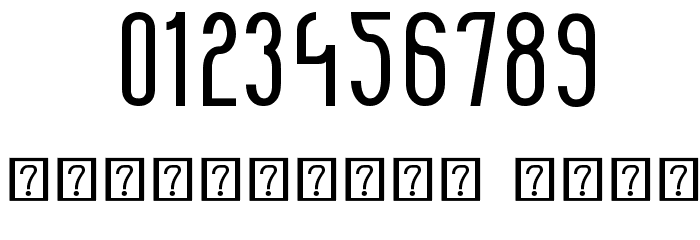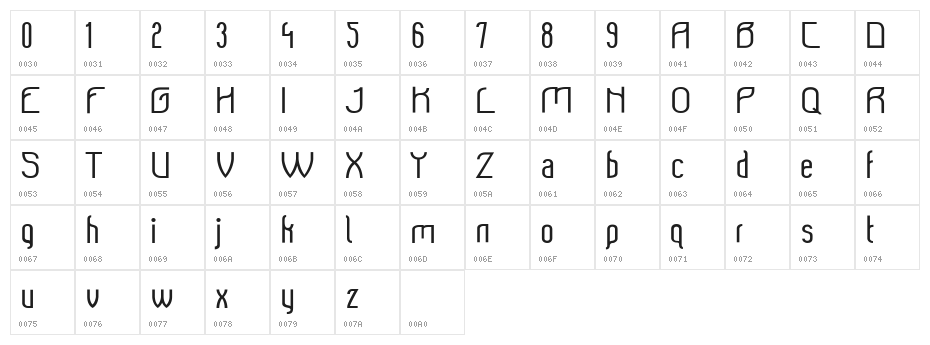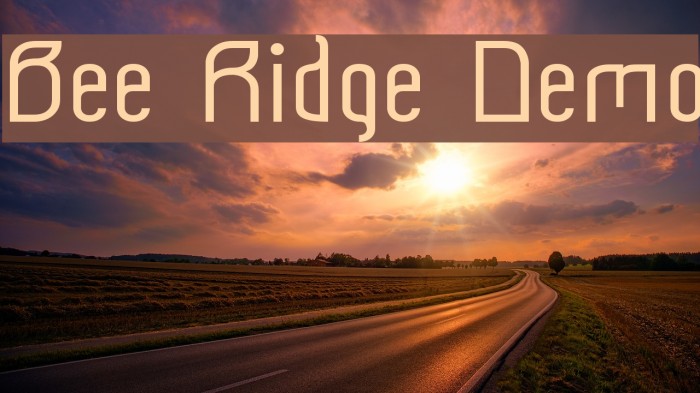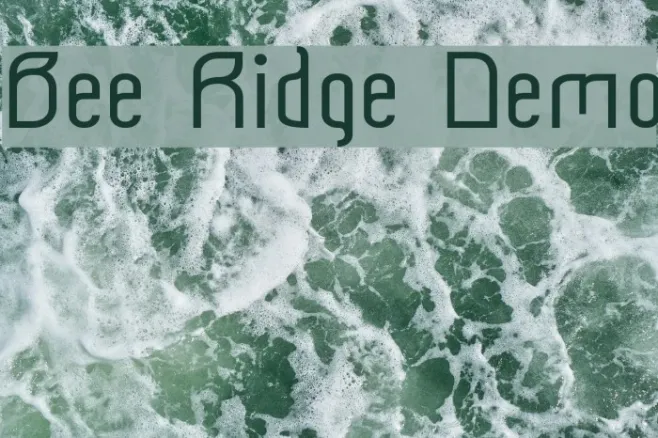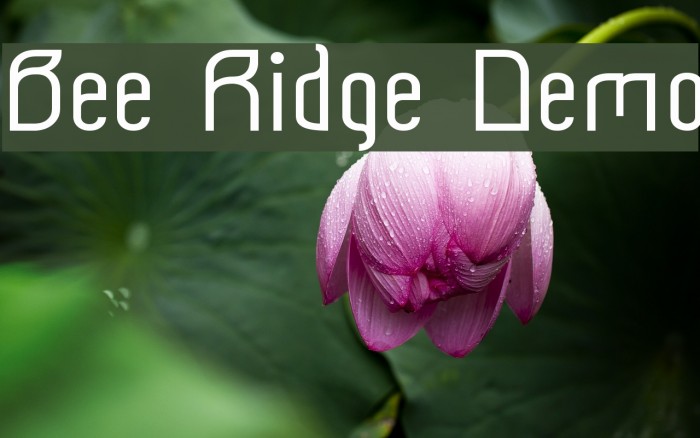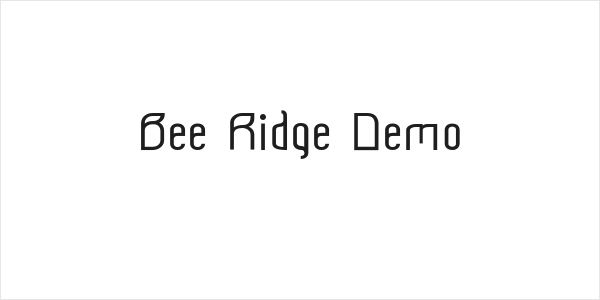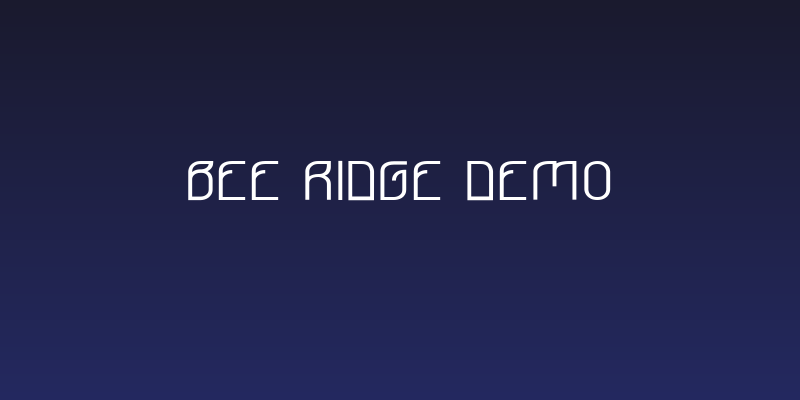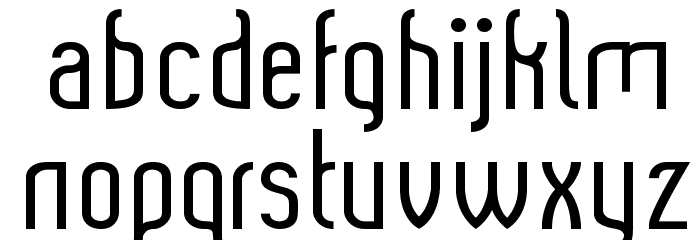
Bee Ridge Demo Font
Bee Ridge Demo Description
This font features a unique blend of modern and geometric elements, characterized by its clean lines and distinct angular shapes. The uppercase letters exhibit a futuristic style with sharp edges and a consistent height, while the lowercase letters maintain a similar geometric structure, offering a cohesive look across different cases. The numerals are bold and easily readable, following the same design principles as the alphabet. The font lacks traditional serifs, giving it a sleek and contemporary appearance. It is well-suited for digital displays and modern branding, where clarity and style are paramount. The special characters are not clearly defined in the image, which may limit their usability.
| Use Case | Headlines, Logos, Digital displays |
| Proposed Projects | Ideal for tech branding, digital interfaces, futuristic designs, and modern advertising. |